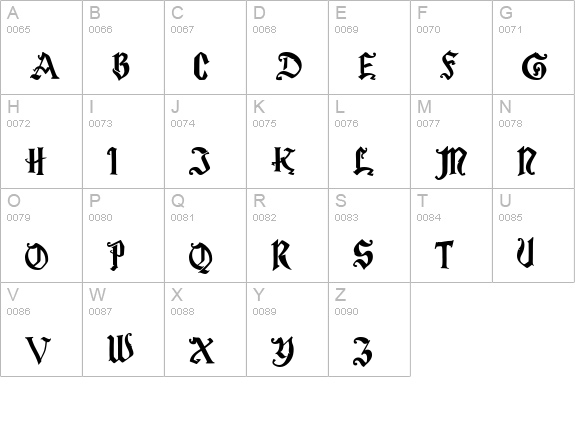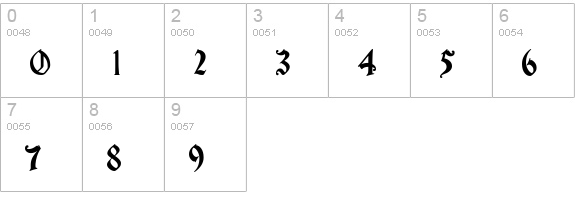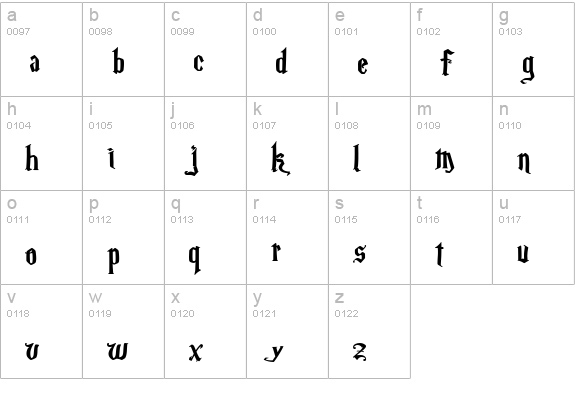
Magic School One Font Details
Introducing the enchanting and captivating Magic School One font! Immerse yourself in a world of mystical charm and whimsical elegance with this truly magical typeface. Crafted with meticulous attention to detail, Magic School One seamlessly blends classic elegance with a touch of modern flair, making it the perfect choice for all your creative projects. This extraordinary font boasts a wide range of beautifully designed characters, each exuding its own unique charm and personality. From delicate swirls to ornate embellishments, every letter is meticulously crafted to capture the essence of enchantment. Whether you're designing invitations for a fairytale-themed wedding, creating spellbinding logos, or adding a touch of magic to your branding materials, Magic School One is sure to leave a lasting impression. And the best part? Magic School One is available to you completely free of charge! Yes, that's right, this stunning font can be freely downloaded at FontsMarket.com, allowing you to unleash your creativity without any limitations. No need to worry about breaking the bank or compromising on quality – Magic School One offers the perfect combination of beauty and affordability. Designed with versatility in mind, Magic School One is suitable for a wide range of projects, from digital designs to print materials. It supports multiple languages, ensuring that you can bring a touch of magic to your creations, no matter where in the world they may be appreciated. So why wait? Download Magic School One today from FontsMarket.com and let your imagination take flight. Whether you're a professional designer or an enthusiastic hobbyist, this font is sure to ignite your creativity and transport you to a world of enchantment. Embrace the magic and let your designs shine with the captivating elegance of Magic School One.